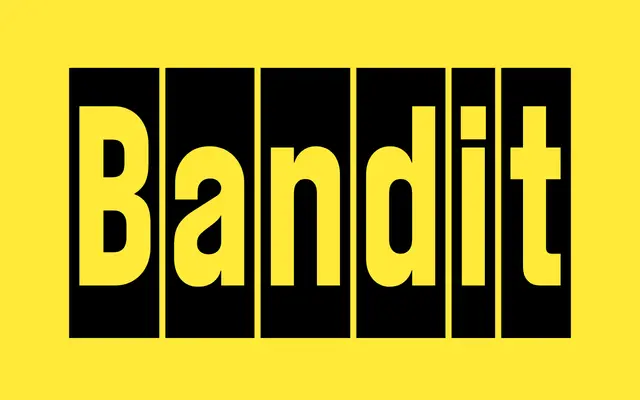
Bandit
AllCaps · Sylvan Lanz · 2023
A display sans by Sylvan Lanz that fuses 1930s Swiss geometric modernism with the reversed contrast of 19th-century American wood type across four condensed cuts and a variable font.
Designed by Sylvan Lanz and released in 2023, Bandit runs from Super-Compressed to Condensed, with the variable font spanning the full width range in a single file. Its reversed contrast, where horizontals are heavier than verticals, draws directly from North American wood type traditions while the modular construction reflects Swiss rational design of the 1930s. Three OpenType stylistic sets add Bauhaus letterforms, hairline accents and a monocase option with clipped descenders for tight leading.
AllCaps classify it as Geometric Condensed Sans; its reversed contrast, modular construction and exclusively condensed-to-compressed width range place it firmly in the display category with roots in both Swiss modernist geometry and American wood type.